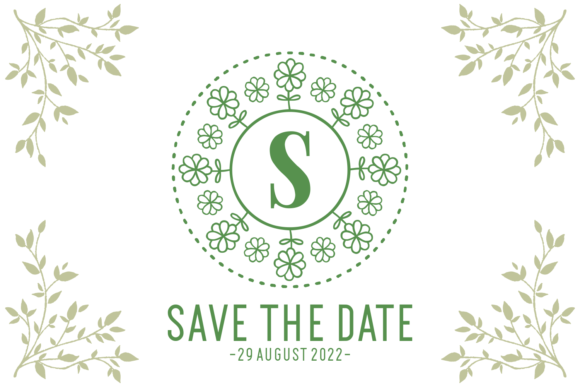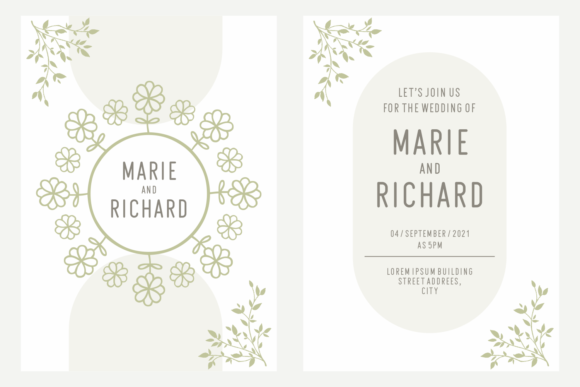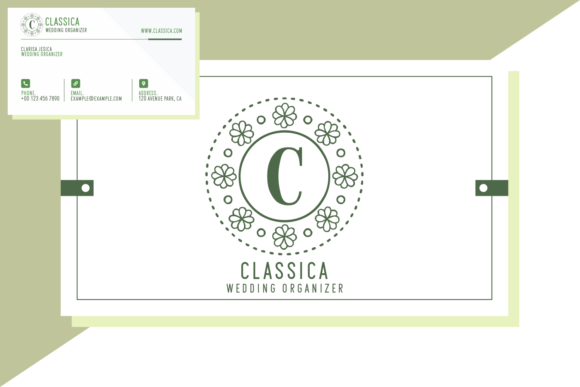
Introducing Floriskiny Font: The Ultimate Decorative Monogram Typeface for Creative Designs
Are you a designer or crafter looking for a unique and creative font to elevate your designs? Look no further than Floriskiny Font, a stunning decorative monogram typeface with a beautiful floral theme. This gorgeous font is perfect for a wide range of creative projects, from logos and landing pages to wedding designs, greeting cards, and more.
What is Floriskiny Font?
Floriskiny Font is a decorative monogram typeface that features intricate floral designs, making it a standout choice for any creative project. The font is carefully crafted to provide a touch of elegance and sophistication, while also being playful and fun. With its unique and eye-catching design, Floriskiny Font is sure to make your designs stand out from the crowd.
What Can I Use Floriskiny Font For?
Floriskiny Font is an incredibly versatile font that can be used for a wide range of creative projects, including:
- Logos: Create a stunning logo for your business or brand with Floriskiny Font.
- Landing Pages: Add a touch of elegance to your landing pages with this beautiful font.
- Wedding Designs: Use Floriskiny Font to create beautiful wedding invitations, programs, and more.
- Greeting Cards: Add a personal touch to your greeting cards with this lovely font.
- Branding: Use Floriskiny Font to create a consistent brand identity across all your marketing materials.
- Magazines: Add a touch of sophistication to your magazine designs with this elegant font.
- Packaging: Use Floriskiny Font to create eye-catching packaging that stands out on store shelves.
- Mugs: Create beautiful custom mugs with this lovely font.
- Book Covers: Use Floriskiny Font to create stunning book covers that grab attention.
- Cards: Add a personal touch to your cards with this beautiful font.
Why Choose Floriskiny Font?
There are many reasons why Floriskiny Font is the perfect choice for your creative projects. Here are just a few:
- Unique Design: Floriskiny Font features a unique and eye-catching design that will make your projects stand out.
- Elegant and Playful: This font is both elegant and playful, making it perfect for a wide range of creative projects.
- High-Quality: Floriskiny Font is a high-quality font that is carefully crafted to provide a beautiful and consistent design.
Tips for Using Floriskiny Font
Here are a few tips for using Floriskiny Font in your creative projects:
- Use it Sparingly: Because Floriskiny Font is a decorative font, it’s best to use it sparingly to add emphasis to your designs.
- Pair it with Other Fonts: Try pairing Floriskiny Font with other fonts to create a unique and interesting design.
- Experiment with Colors: Don’t be afraid to experiment with different colors to find the perfect match for your design.
Floriskiny Font is a beautiful and versatile decorative monogram typeface that is perfect for a wide range of creative projects. With its unique and eye-catching design, this font is sure to make your designs stand out from the crowd. Whether you’re a designer or crafter, Floriskiny Font is a must-have font that will help you take your creative projects to the next level.